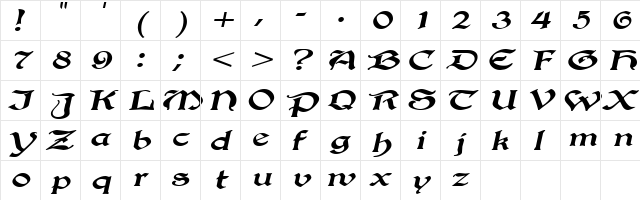
InnkeeperExtended Italic
Design Context for InnkeeperExtended Typeface
InnkeeperExtended is a composed and adaptable typeface that performs quietly and consistently across a wide range of design contexts. The slanted form adds forward momentum and visual energy.
Pro Tip: Use InnkeeperExtended for emphasis, pull quotes, and subheadings where its slanted energy can add rhythm to the layout.